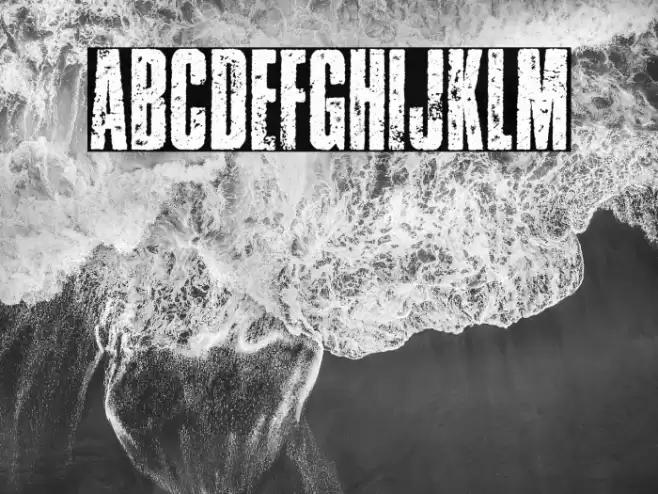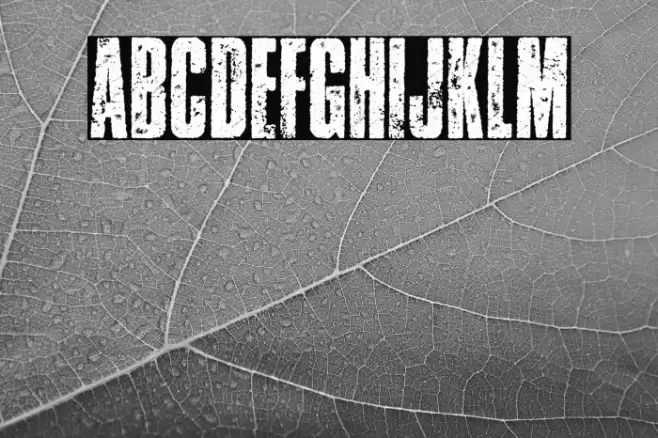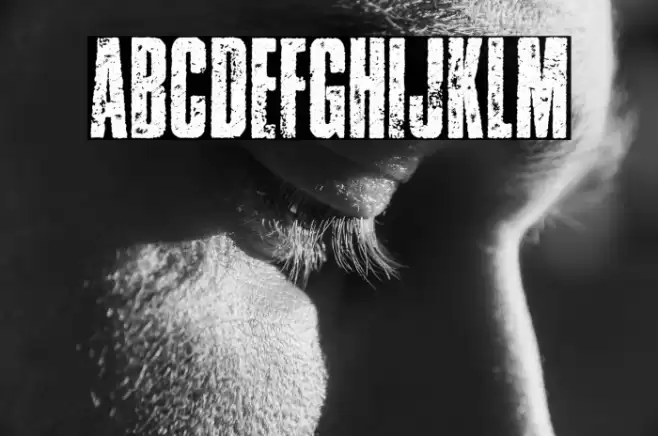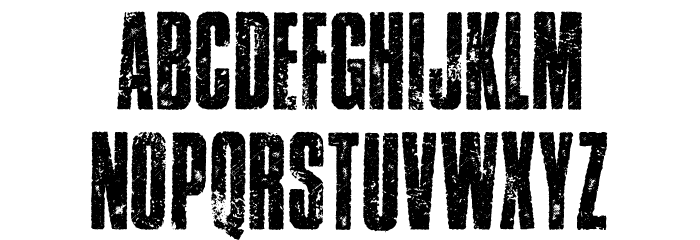
ERODED PERSONAL USE Regular Font
ERODED PERSONAL USE Regular Description
This font features a rugged, distressed appearance, giving it an eroded and weathered look. The characters are bold and impactful, with a textured surface that suggests wear and tear, making it ideal for designs that require a gritty, industrial feel. The uppercase letters are uniformly sized, maintaining a consistent height, while the texture varies across each character, adding a unique touch to every letter. This font is particularly suitable for projects that aim to convey a sense of age, strength, or resilience. Its bold nature ensures that it stands out, making it perfect for headlines or titles that need to grab attention.
A bold, distressed font with a rugged, eroded texture from Uncategorized fonts.
- Font: ERODED PERSONAL USE Regular
- Proposed Projects: Ideal for posters, album covers, branding for outdoor or adventure-themed products, and any design needing a gritty, industrial touch.
- Overall Style: Vintage, Industrial